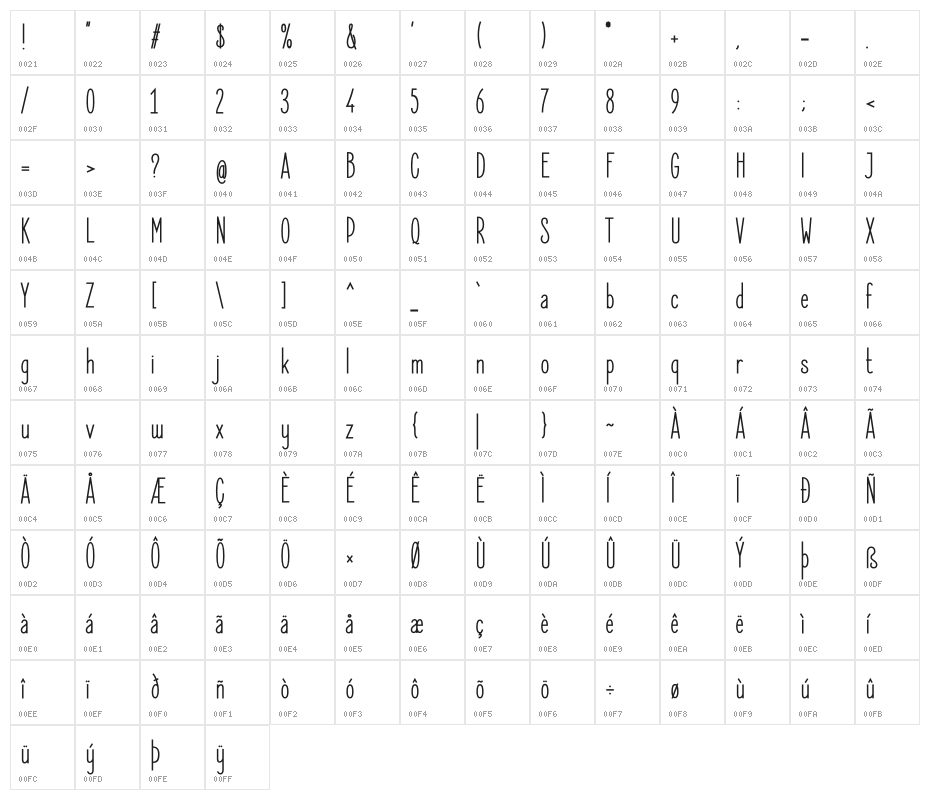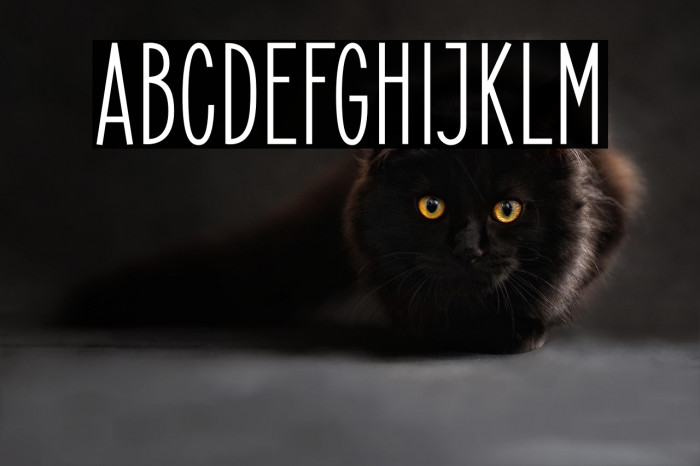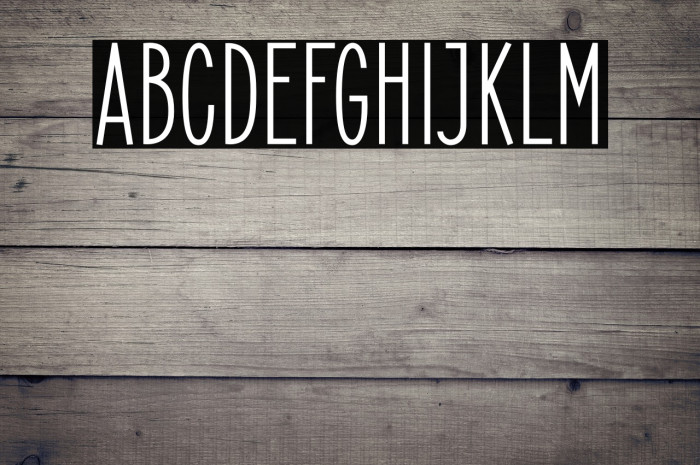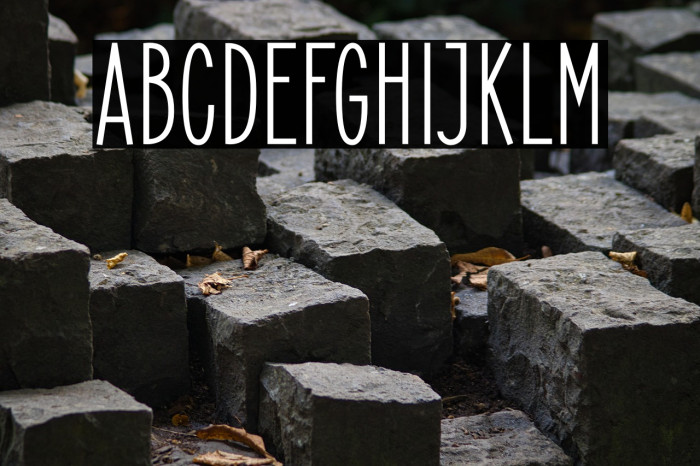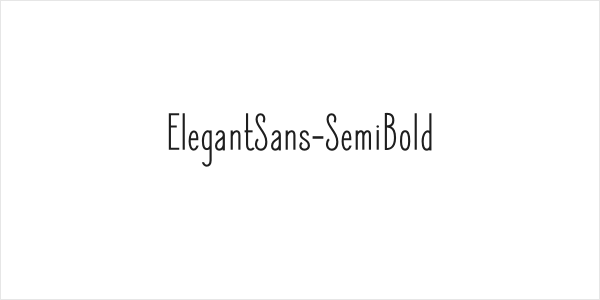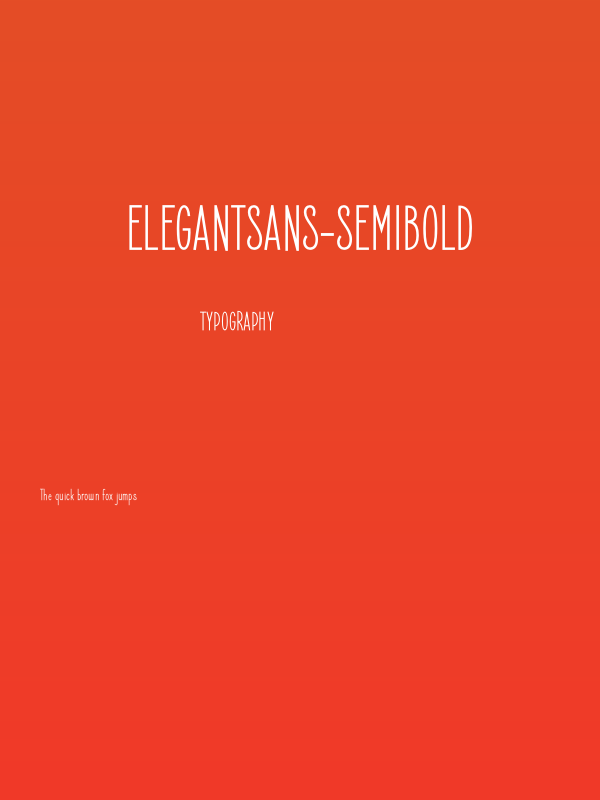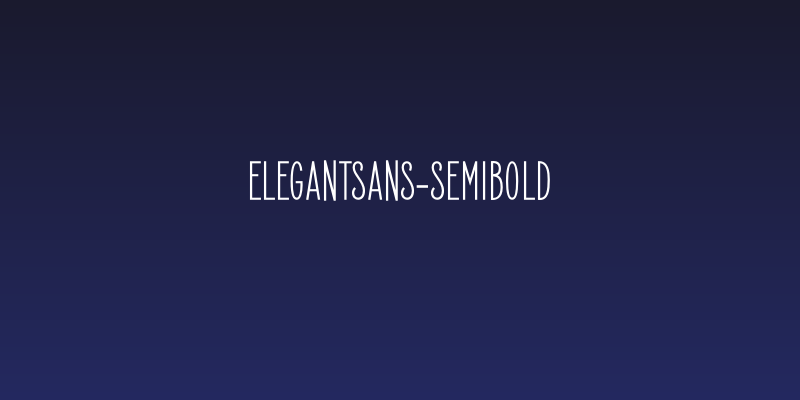
ElegantSans-SemiBold Font
ElegantSans-SemiBold Description
This font features a clean and modern sans-serif style with a semi-bold weight. The characters are tall and narrow, giving it an elegant and sophisticated appearance. The uppercase letters are slightly taller than the lowercase, maintaining a consistent line weight throughout. The numbers are well-proportioned and align seamlessly with the letters, ensuring readability. Special characters are designed with the same sleek lines, making them blend effortlessly with the rest of the font. Its simplicity and clarity make it versatile for various design needs.